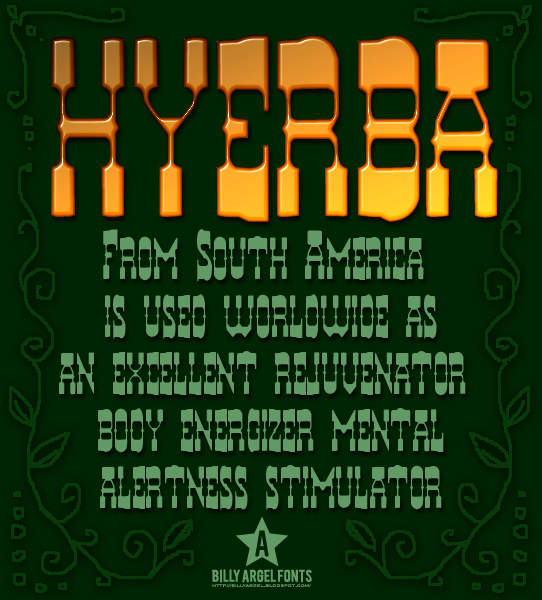
HYERBA by Billy Argel is a distinctive typeface that encapsulates a blend of modernity and classic elegance, making it a unique addition to the plethora of fonts available to designers and typographers. Billy Argel, known for his singular approach to type design, infuses a personal touch into HYERBA, resulting in a font that is both approachable and sophisticated, offering extensive versatility for a variety of design projects.
The HYERBA font characterizes a scripted style that hints at calligraphic traditions, yet it is crafted with a contemporary twist that keeps it fresh and engaging. What sets HYERBA apart is its fluidity and readability, which is a testament to Argel's skillful balance of aesthetics and functionality. Each letterform in HYERBA is designed with a meticulous attention to detail, featuring flowing lines and nuanced curves that convey a sense of motion and elegance. This makes it exceptionally suitable for branding, editorial designs, and creative projects that require a touch of personality and flair.
Moreover, HYERBA exemplifies a certain emotional resonance through its design. The font’s dynamic range—from thick, bold strokes to thin, delicate lines—provides a visual rhythm that is both captivating and comforting. This versatility allows designers to use HYERBA in a myriad of ways, whether for an eye-catching headline, an intimate invitation, or even as an artistic element in logo design. Billy Argel’s creation is thus not just a font but a tool for storytelling, capable of adding depth and emotion to the textual content it accompanies.
In summary, HYERBA by Billy Argel is more than just typography; it is an artistic expression that bridges the gap between traditional calligraphy and contemporary design sensibilities. Its elegance, combined with practicality, makes it a go-to font for designers looking to imbue their work with a sense of sophistication and uniqueness. With HYERBA, Billy Argel once again proves his prowess as a designer, offering a font that is both beautiful and immensely usable across various contexts.
HYERBA